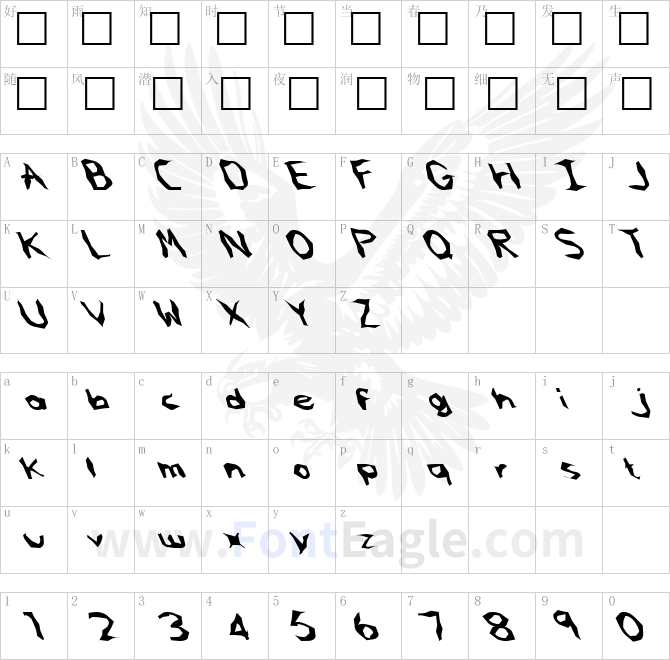
FZ-WACKY-61-LEFTY is a great font, widely used in graphic design, single-page menu design, poster design and other fields, and is deeply loved by designers.FZ-WACKY-61-LEFTY download.